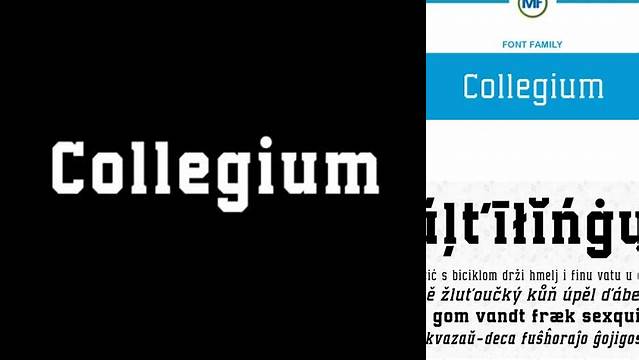
Hey design enthusiasts! Are you on the hunt for a sophisticated and elegant font to elevate your projects? Look no further, because we're diving deep into the world of the Collegium font, and the best part? You can get a collegium font free download! That's right, we're talking about a beautiful typeface that can add a touch of class and professionalism to your work without breaking the bank. Whether you're a seasoned graphic designer, a budding entrepreneur, or just someone who loves to dabble in creative projects, this article is packed with valuable information about Collegium font, where to find it, and how to use it effectively. Let's get started, shall we?
H2: Unveiling the Elegance: What Makes Collegium Font Special?
Collegium font isn't just another typeface; it's a statement. It's a carefully crafted font designed to exude sophistication and readability. What sets Collegium apart from the crowd is its versatility. It's a font that can seamlessly blend into various design projects, from formal invitations and elegant branding to modern website layouts and eye-catching marketing materials. Collegium often features a clean, clear design, making it easy on the eyes while still possessing a unique character. Think of those classic, timeless fonts you see gracing luxury brands or high-end publications; Collegium captures some of that same essence.
When considering why this font is special, it's also about its subtle details. The curves, the serifs (if it has them), the weight variations – all these elements work together to create a harmonious visual experience. It’s about the balance and the way the letters interact with each other, creating a rhythm that draws the reader in. Furthermore, the right font can significantly impact the overall feel and effectiveness of your design. Choosing Collegium means choosing a font that can help you create a positive and lasting impression, whether you're designing a sleek business card or a comprehensive website. The font’s design is often carefully considered to ensure optimal legibility across different sizes and platforms. This makes it a reliable option for both print and digital applications. And when you have access to a collegium font free download, the deal becomes even sweeter. Using Collegium can also contribute to brand recognition, making your designs instantly recognizable and memorable. A consistent and unique font choice, like Collegium, can become an important part of your brand's identity. Choosing the right font can be a game-changer for your projects. This specific font offers both aesthetics and functionality, ensuring your designs look great and perform well. This makes Collegium a fantastic choice for anyone looking to boost the impact of their design work.
H3: Core Features and Design Elements of Collegium Font
Alright, let's get down to the nitty-gritty and explore the core features and design elements that make Collegium font so special. First, let's talk about the general style. This font often leans towards a classic, elegant style. Think of it as a modern take on traditional typography, perfect for projects that demand sophistication. Many versions of Collegium feature serifs – those small strokes at the end of letters that add a touch of formality and polish. This can make it an excellent choice for projects where a sense of tradition or prestige is desired. The weight variations within the font family is also crucial. Collegium usually comes in a range of weights, such as light, regular, bold, and sometimes even extra bold. This gives you the flexibility to use it in various ways. For example, you might use a light weight for body text, a regular weight for subheadings, and a bold weight for headlines to create visual hierarchy within your design.
Another key feature is the letterforms themselves. The designers of Collegium pay meticulous attention to the details of each letter. The curves are often carefully crafted to ensure both beauty and readability. The spacing between letters (kerning) and between lines (leading) is usually optimized to create a balanced and harmonious look. The choice of serifs (or lack thereof) and the overall design of the letterforms have a significant impact on how the font is perceived. For instance, a font with sharp, angular serifs might feel more modern, while a font with more rounded serifs might feel more classic. Moreover, the character set is another vital consideration. A comprehensive character set ensures that you have all the letters, numbers, symbols, and special characters you need for your project. Some versions may even include alternate characters or ligatures to add extra flair and customization options. It's crucial to consider the design elements to pick the perfect font for your project. You can check the type of fonts that are compatible with the font you selected. A well-designed font, like Collegium, will have consistent letterforms, proper kerning, and a comprehensive character set.